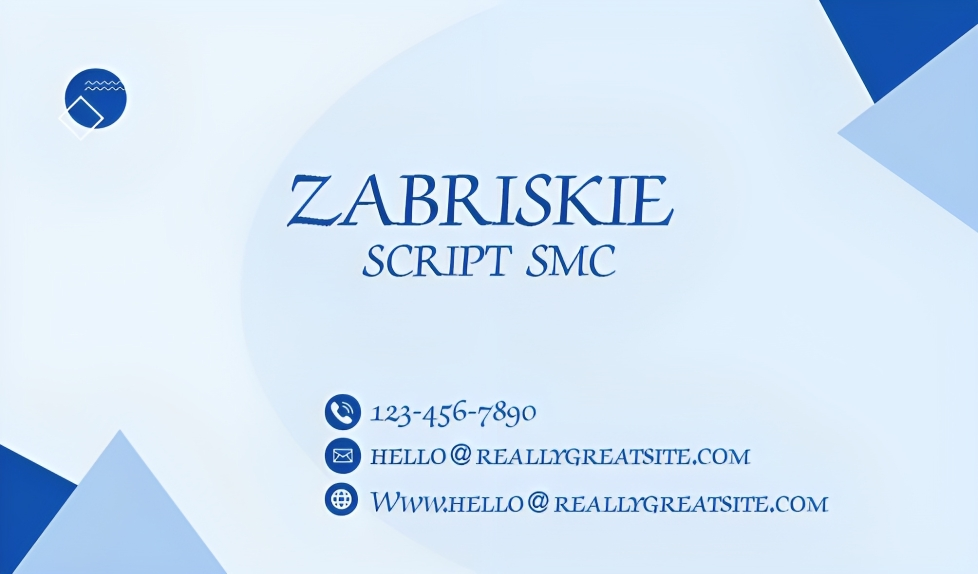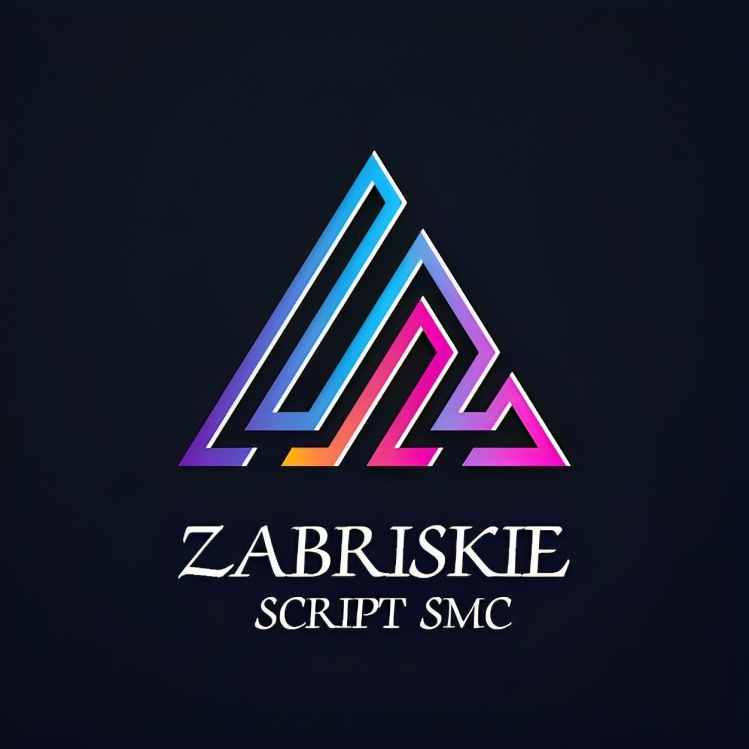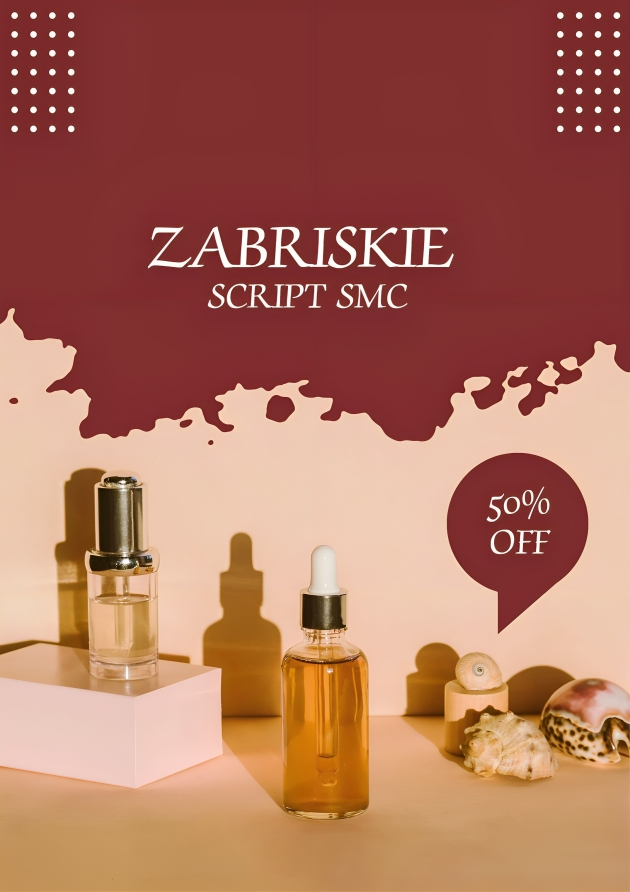
Zabriskie Script SMC Bold is a font that is perfect for fun designs. It was designed by SoftMaker Software GmbH and is free to use for personal purposes.The font subfamily is Bold.